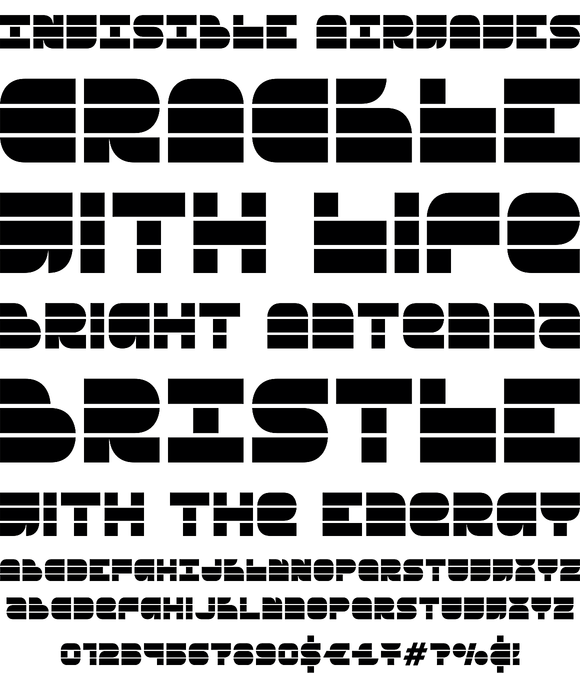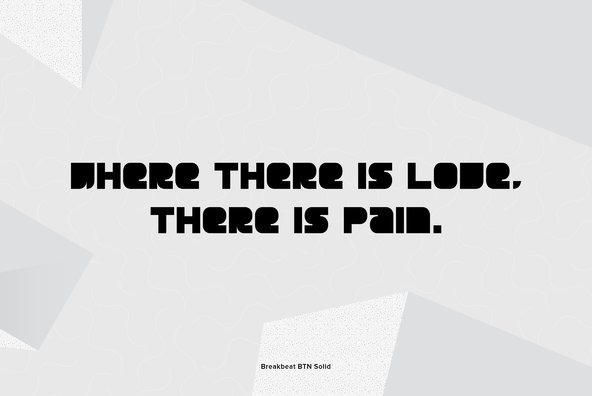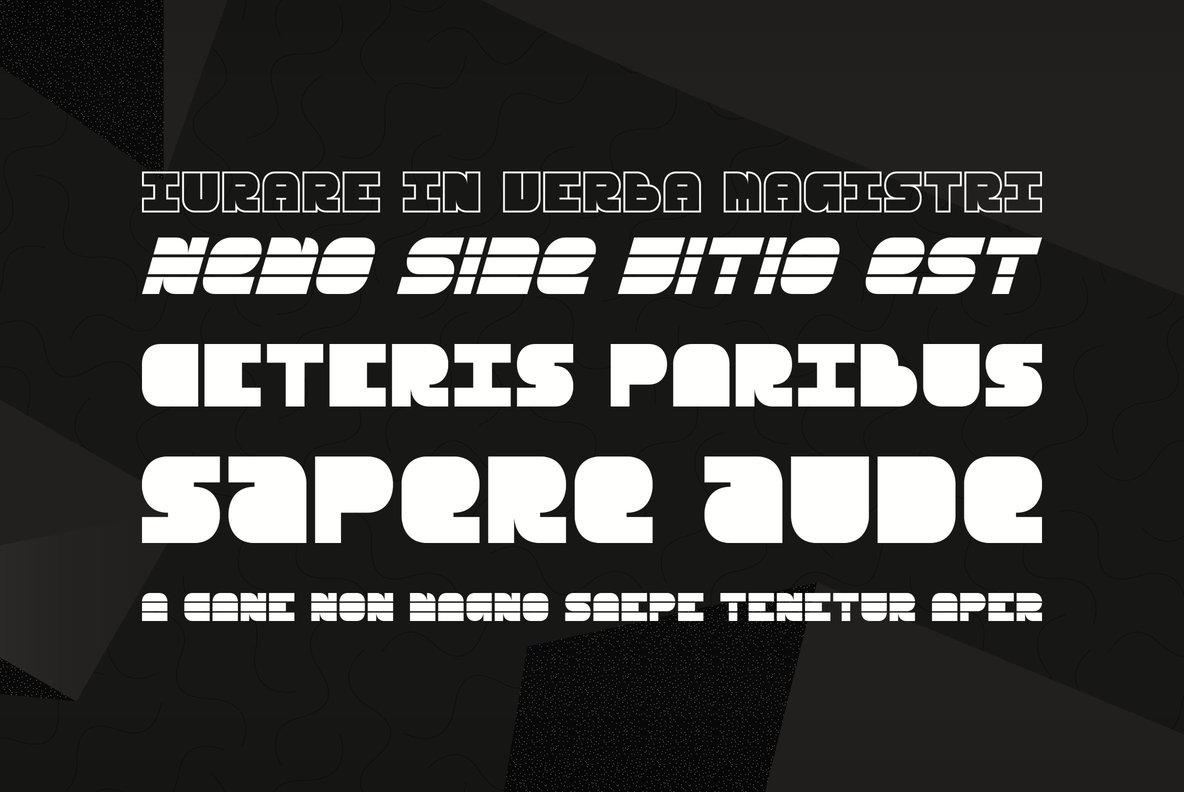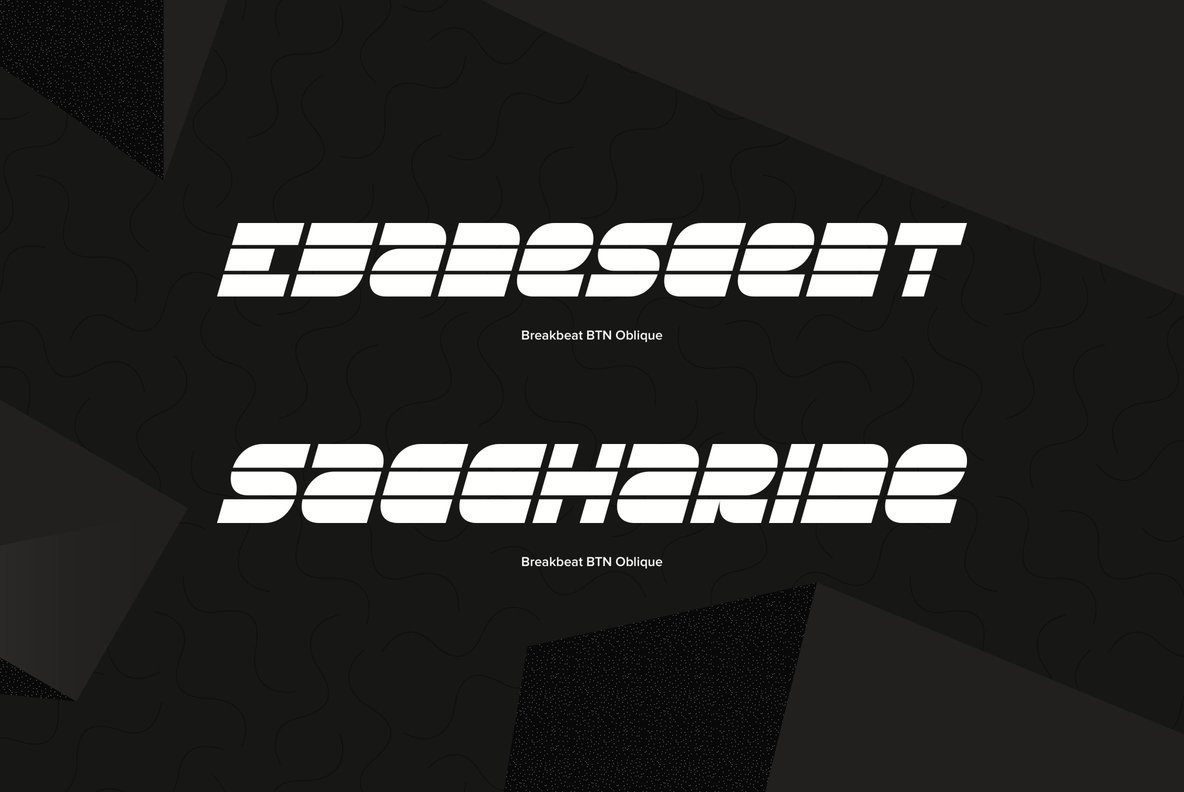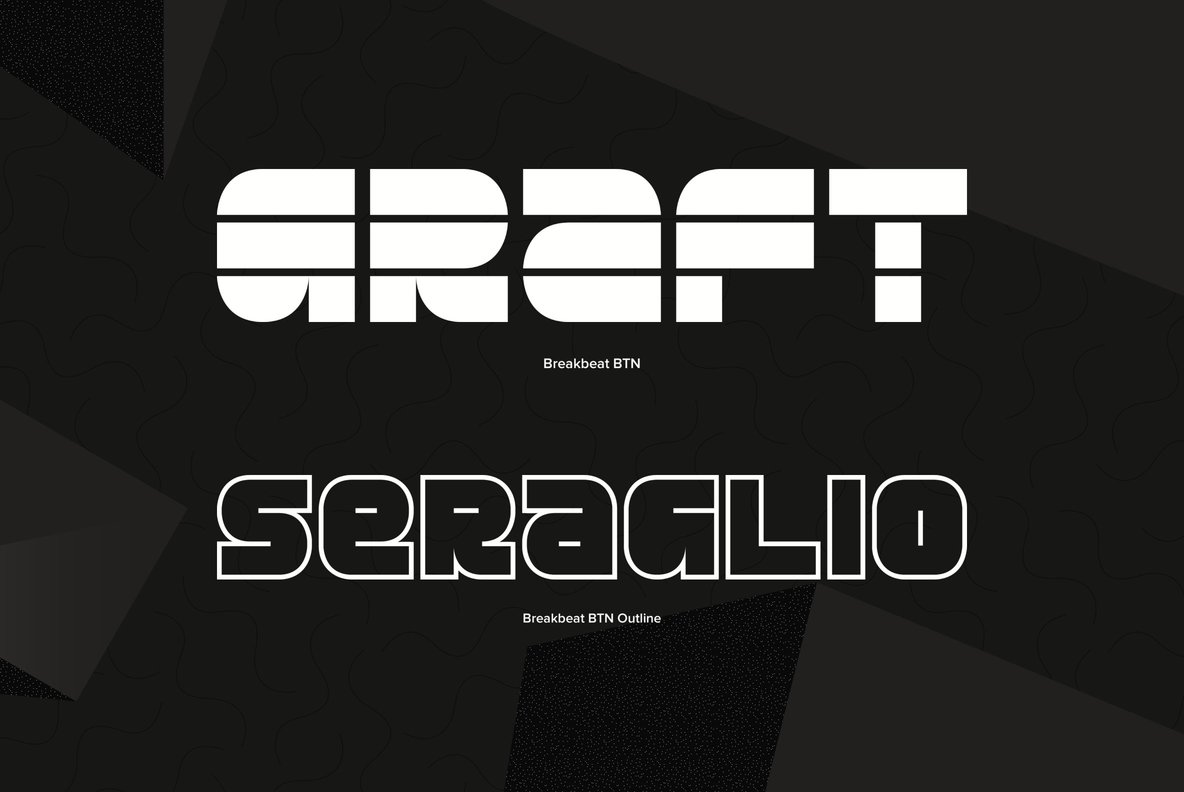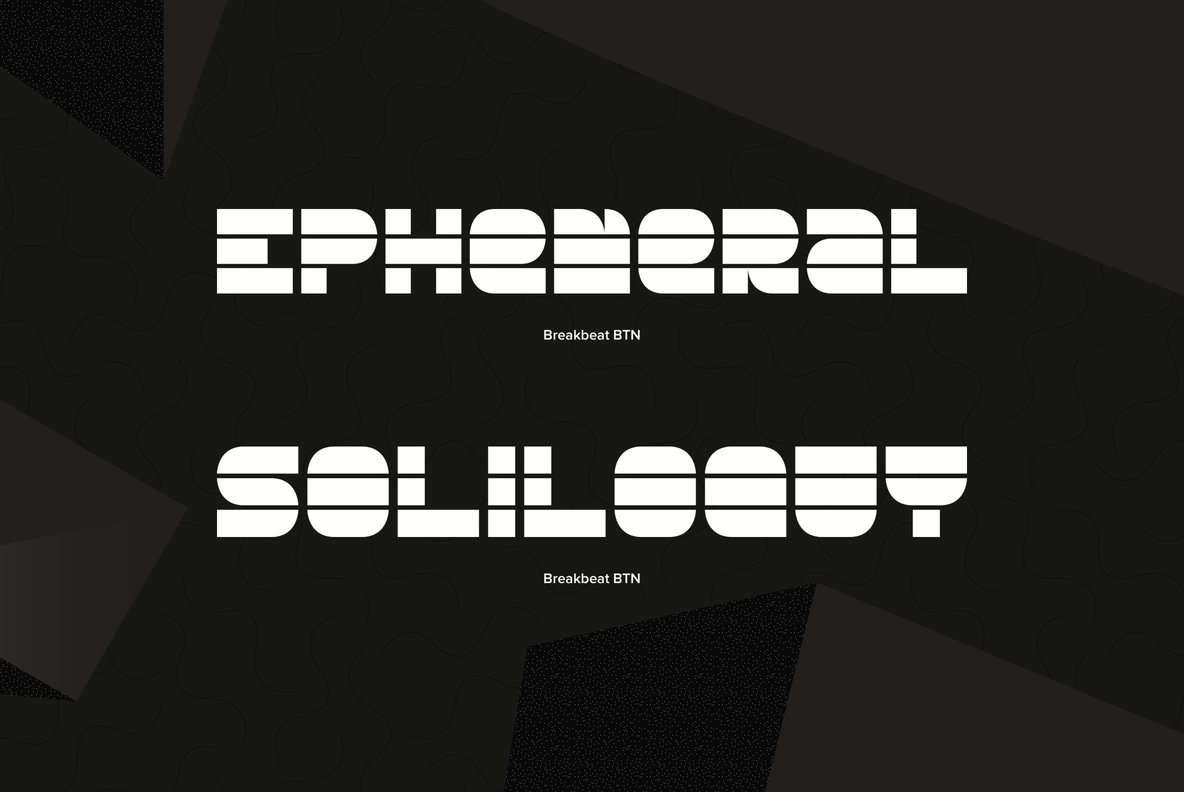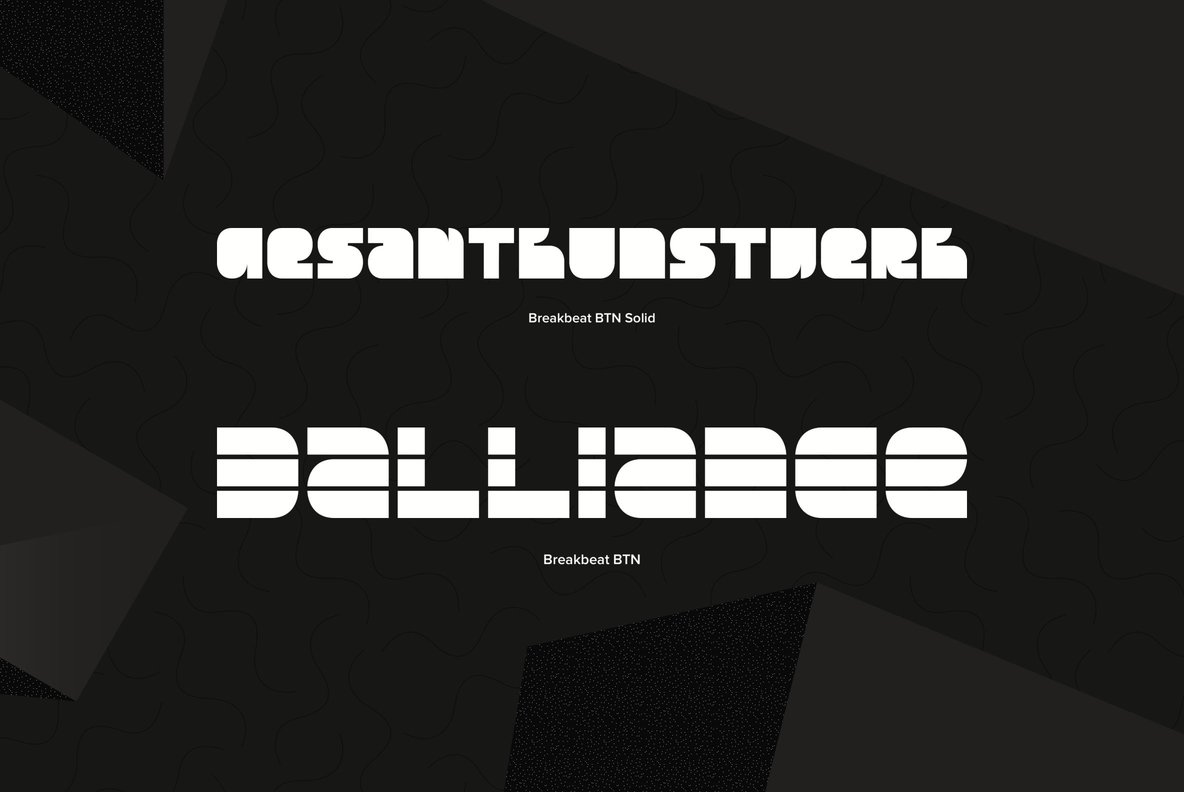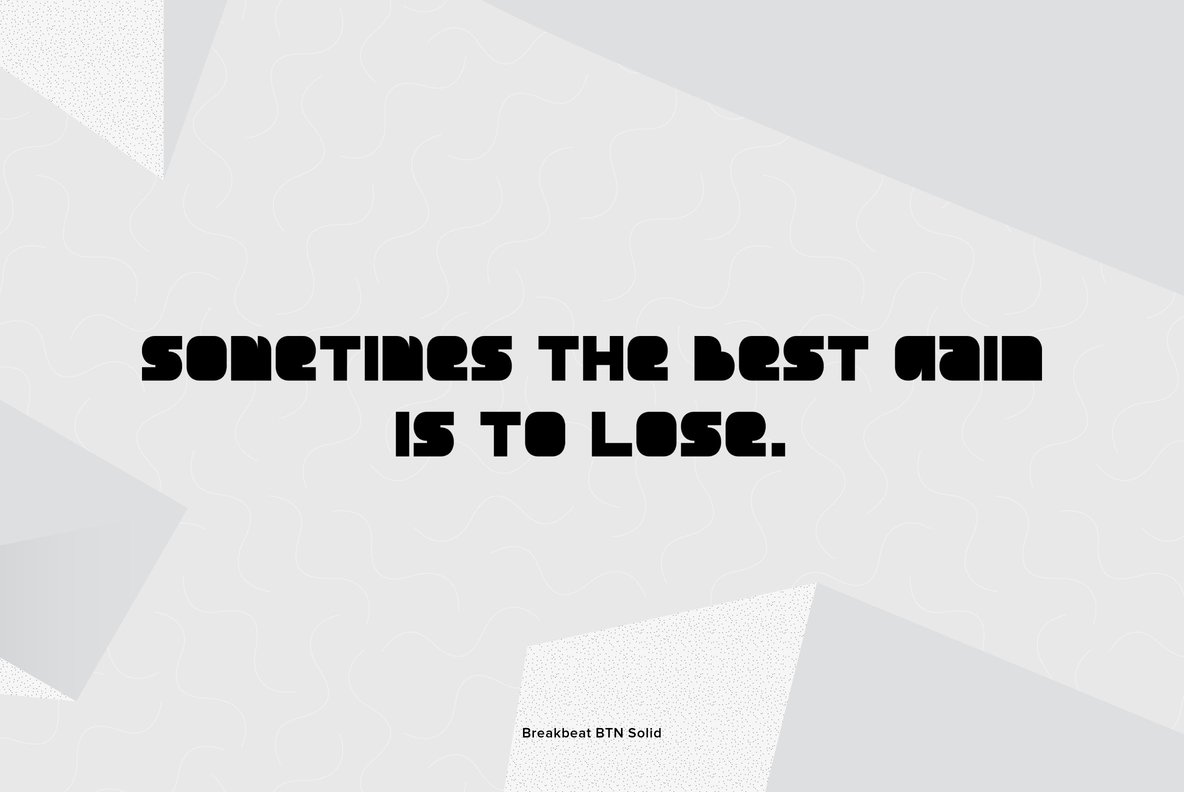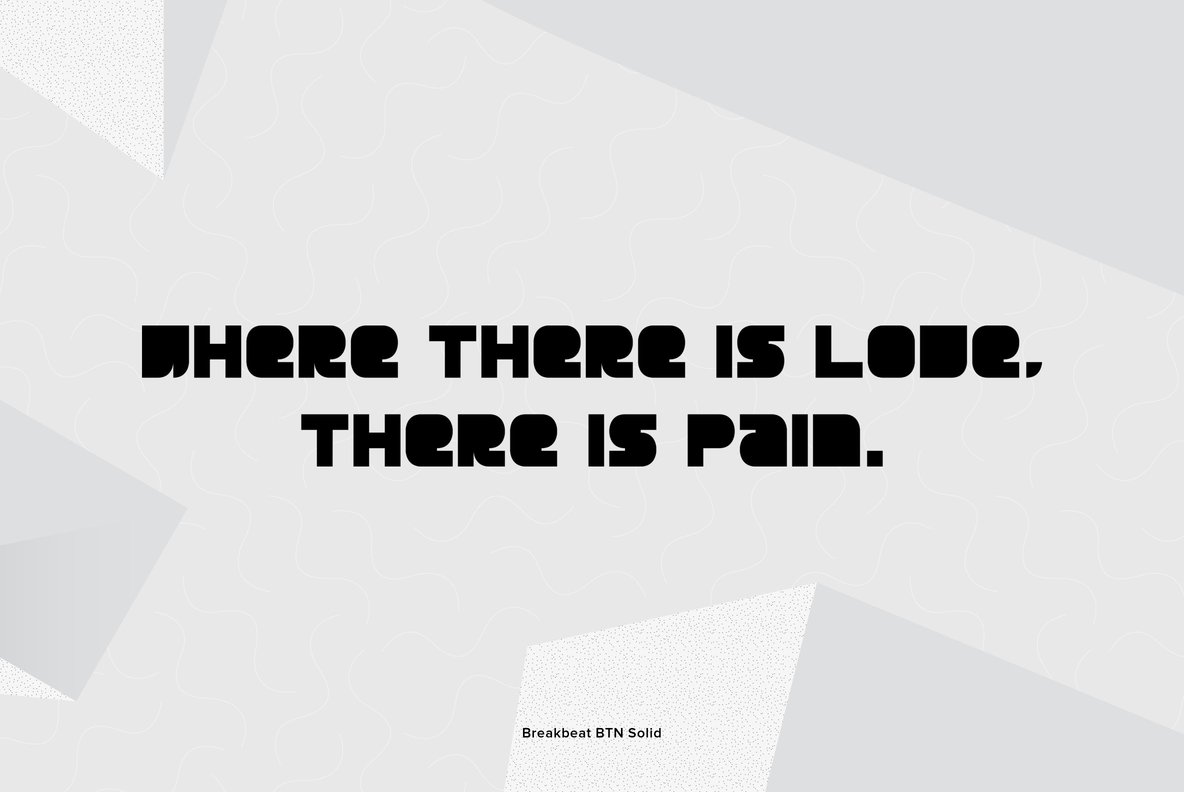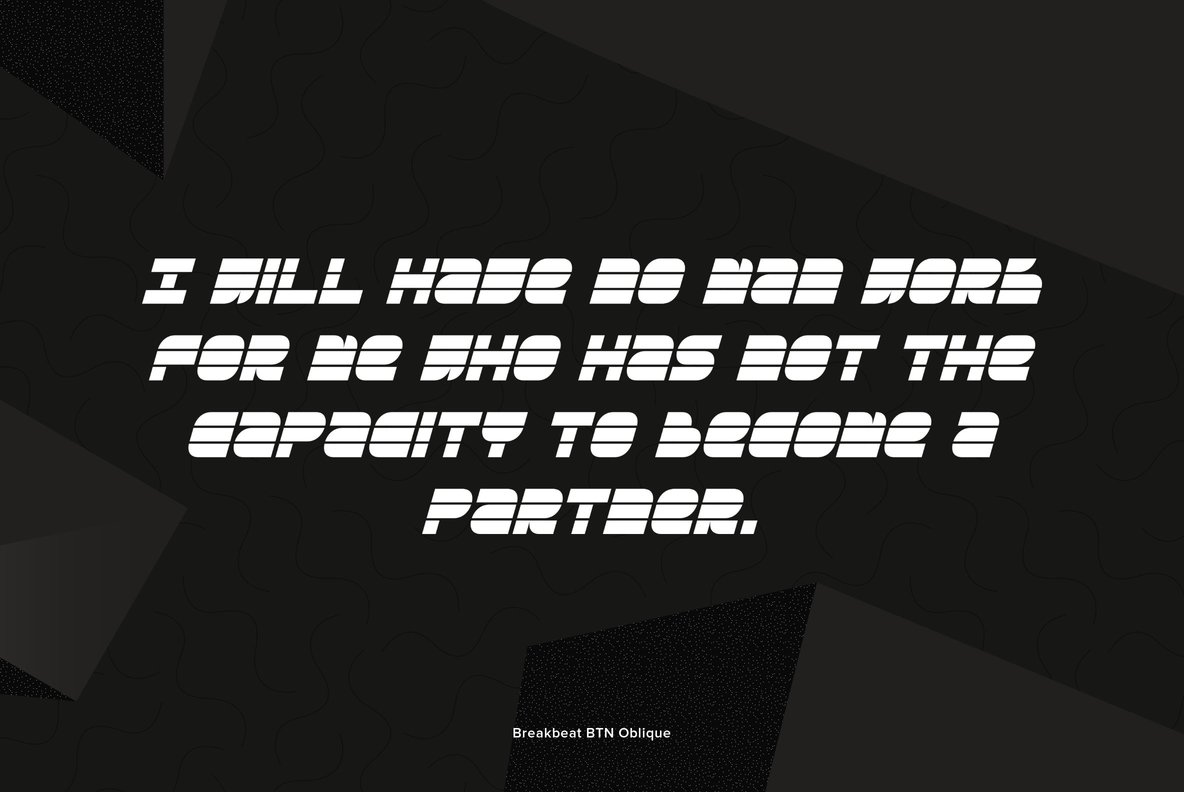
Breakbeat
Breakbeat is a strong techno style typeface with stenciled, solid, and outline variants to add to its appeal. Perfect for club flyers, raves, techno designs, and the like.